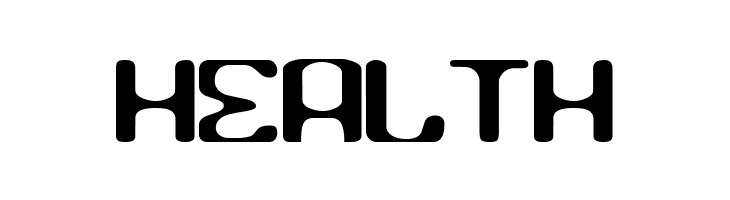
A bold, three-dimensional font with a vintage, shadowed style.
A distressed, textured font with a vintage and rugged appearance.
A bold, playful font with a hand-drawn, vintage-inspired style.
A distressed, grunge-style font with irregular edges and a worn-out look.
A bold, electrified font with a distressed, dynamic style.
A bold, angular font with electrifying motifs and a modern, edgy style.
A playful, elephant-themed decorative font with intricate details.
A playful, hand-drawn font with bold, rounded characters and a whimsical style.
A bold, expressive font with a brush-like, graffiti-inspired style.
An artistic font with sharp, angular strokes and dynamic flow.
A bold, geometric font with angular lines and a strong visual impact.
A playful, bold, and hand-drawn font with rounded characters and whimsical elements.
Pixelated monospaced Japanese font with a retro digital style.
A mystical and esoteric font with angular, decorative letterforms.
A mystical and decorative font with intricate, esoteric designs.
A playful, hand-drawn font with a whimsical and bold style.
A dynamic font combining calligraphic elegance with modern angularity.
A dynamic, arrow-themed font with a modern and playful design.
A playful, hand-drawn font with wavy, bold strokes and a whimsical style.
A distressed, slab serif font with a rugged, worn appearance.
A high-contrast, elegant serif font with sharp serifs and a modern appeal.
A futuristic, geometric font with angular and sharp edges.
A futuristic, geometric font with sharp, angular lines and a modern aesthetic.
A bold, playful font with rounded edges and a blocky structure.
A bold, geometric font with a modern, digital aesthetic.
A pixelated, monospaced font with a retro digital aesthetic.
A condensed, monospaced font with a modern, digital aesthetic.
A pixelated, retro font inspired by early digital displays.
( Electropithecus )
A pixelated, condensed font with a retro digital style.
( Electropithecus )
A pixelated, retro-style font inspired by early digital displays.
( Electropithecus )
A pixelated, retro-style font with a blocky, digital appearance.